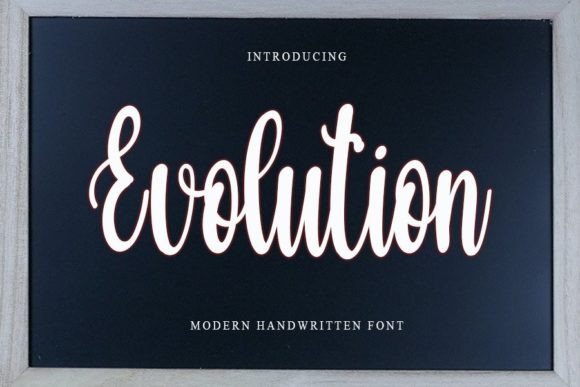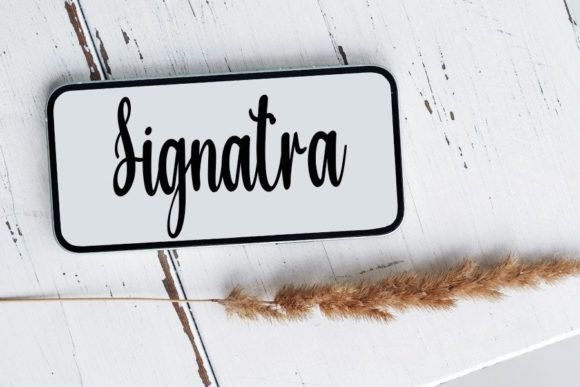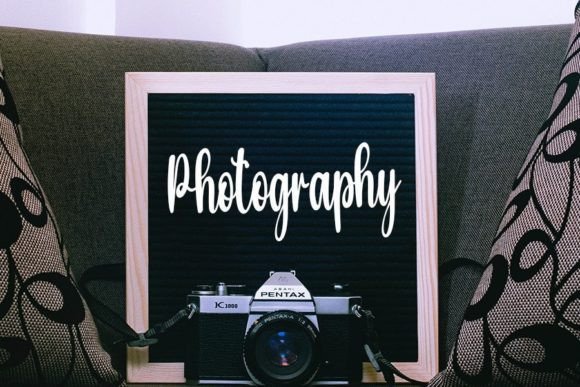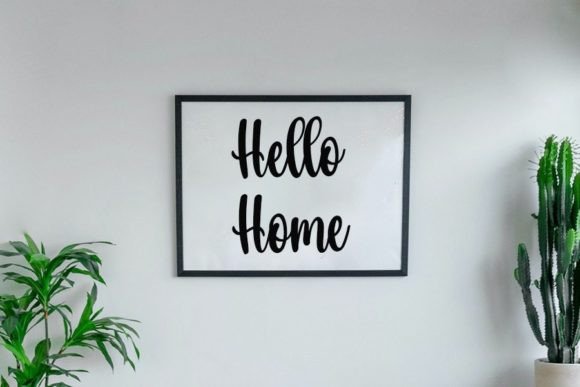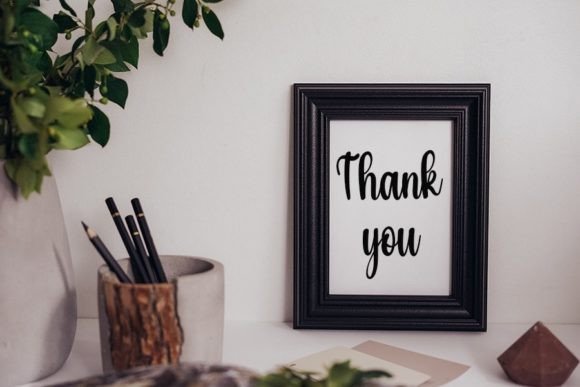
Evolution Font
About Evolution Font
Evolution is a meticulously crafted and beautiful handwritten font characterized by an elegant touch, making it perfect for your favorite projects. Its incredibly distinct and timeless style invites you to fall in love with its charm and use it to create spectacular designs.
The neat and refined design of Evolution adds a touch of sophistication to your text, making it well-suited for a wide range of applications. Whether you’re working on branding, invitations, product packaging, or any creative project, Evolution enhances the visual appeal with its distinct and elegant aesthetic.
Picture Evolution being a key element in your projects, contributing to a polished and refined atmosphere. The font’s versatility allows it to adapt seamlessly to various design themes, ensuring that your creations maintain a cohesive and timeless quality.
Incorporate Evolution into your favorite projects, and witness how its elegant touch elevates the overall aesthetic. Let this font be the inspiration for creating designs that are not only visually appealing but also possess a distinct and memorable style.
In conclusion, Evolution is more than just a font; it’s a design asset that brings an elegant touch to your creations. Whether you’re crafting branding materials or invitations, let Evolution be the key to creating spectacular designs with a timeless and distinct style.